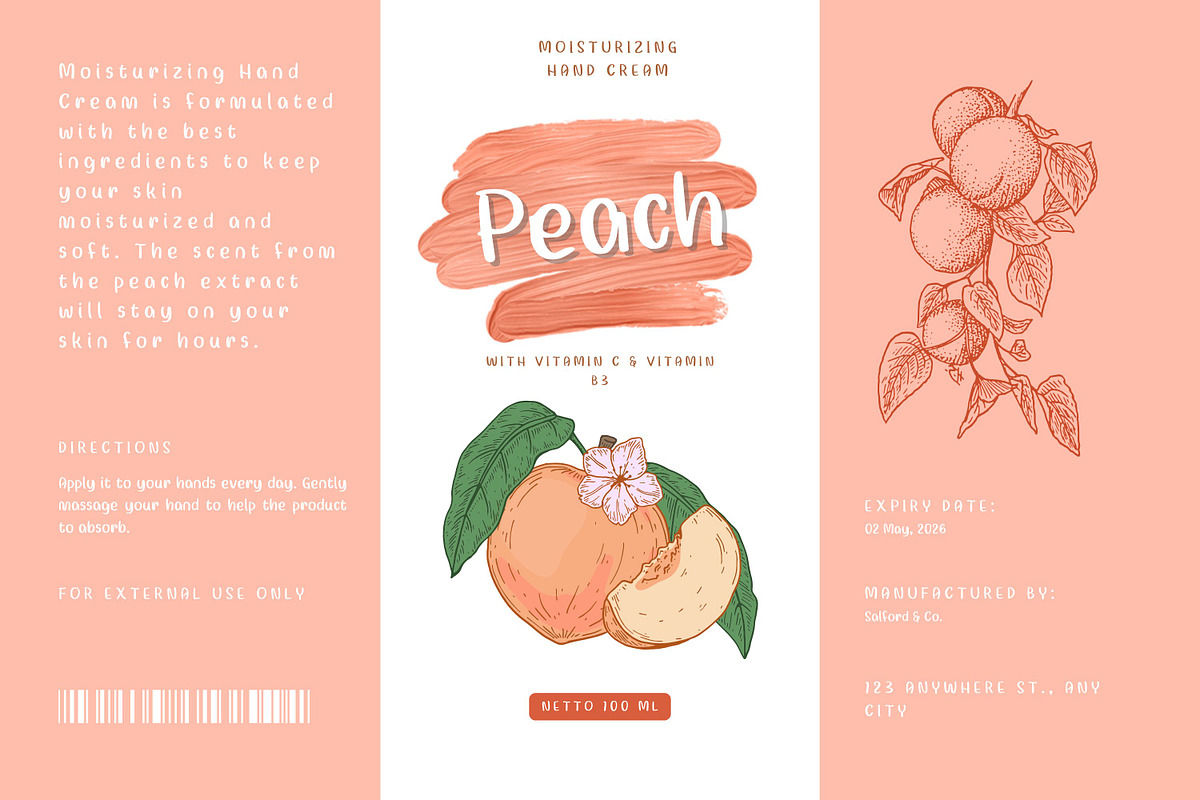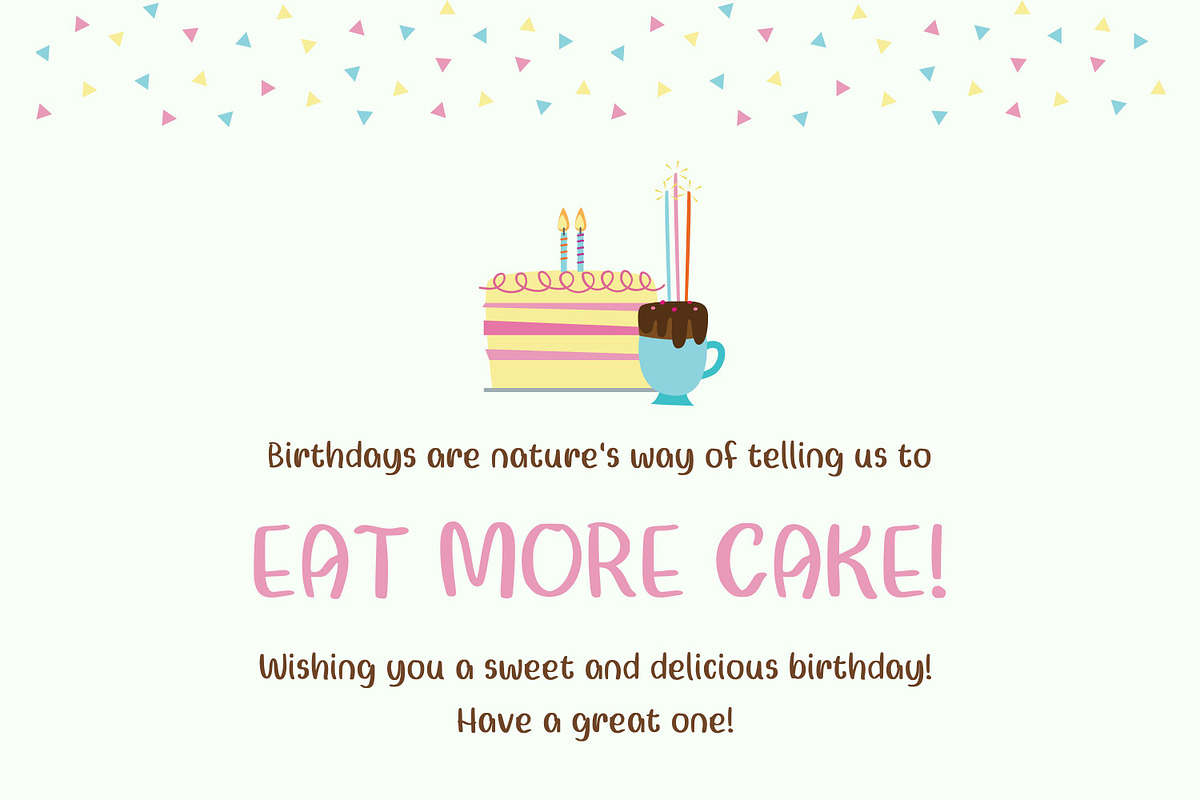
Curly Hair
Experience the magic of our “Curly Hair” font, meticulously crafted to add a playful touch to your greeting cards and letters.
This artistically charming font enhances your messages with its whimsical curls and soft, gentle lines. It’s an innovative twist on classic typography, seamlessly blending elegance with lightheartedness.
This Curly Hair font is exceptionally versatile for greeting cards, scrapbooking, and educational materials where a rigid font would feel too cold. It pairs beautifully with hand-drawn doodles and watercolor textures. Use it to add a dash of personality to your “how-to” guides or to create a welcoming atmosphere for a community event flyer. It’s the typeface for when your design needs to give the audience a metaphorical hug.
Perfect for adding a dash of joy and beauty to your design, the “Curly Hair” font is not just a choice; it’s a statement. Enrich your narrative with this irresistibly attractive, one-of-a-kind font!